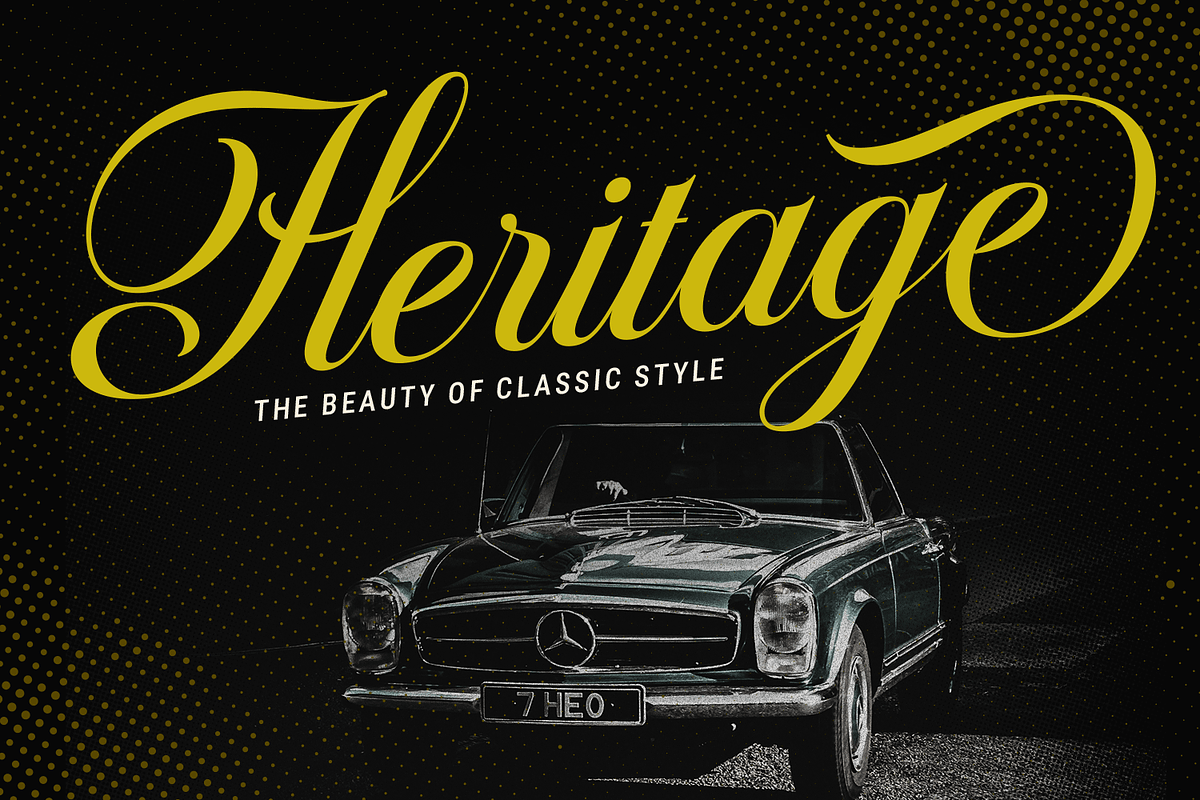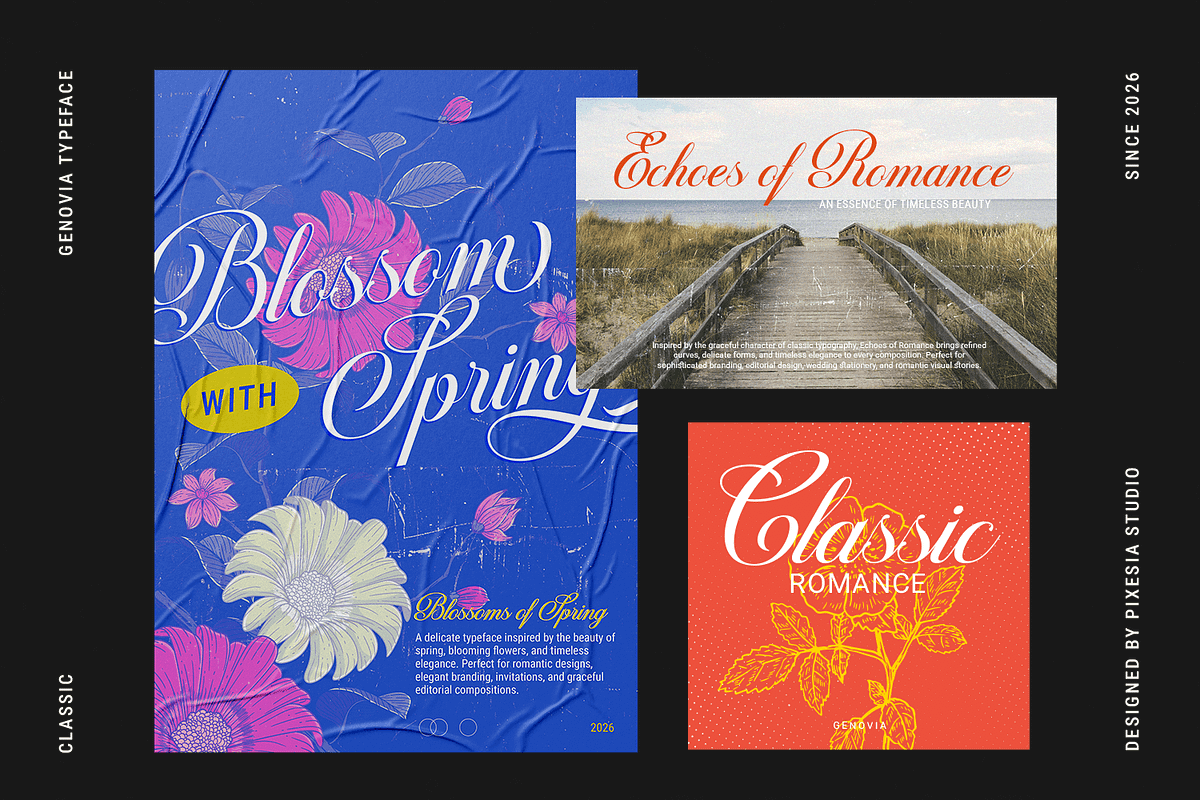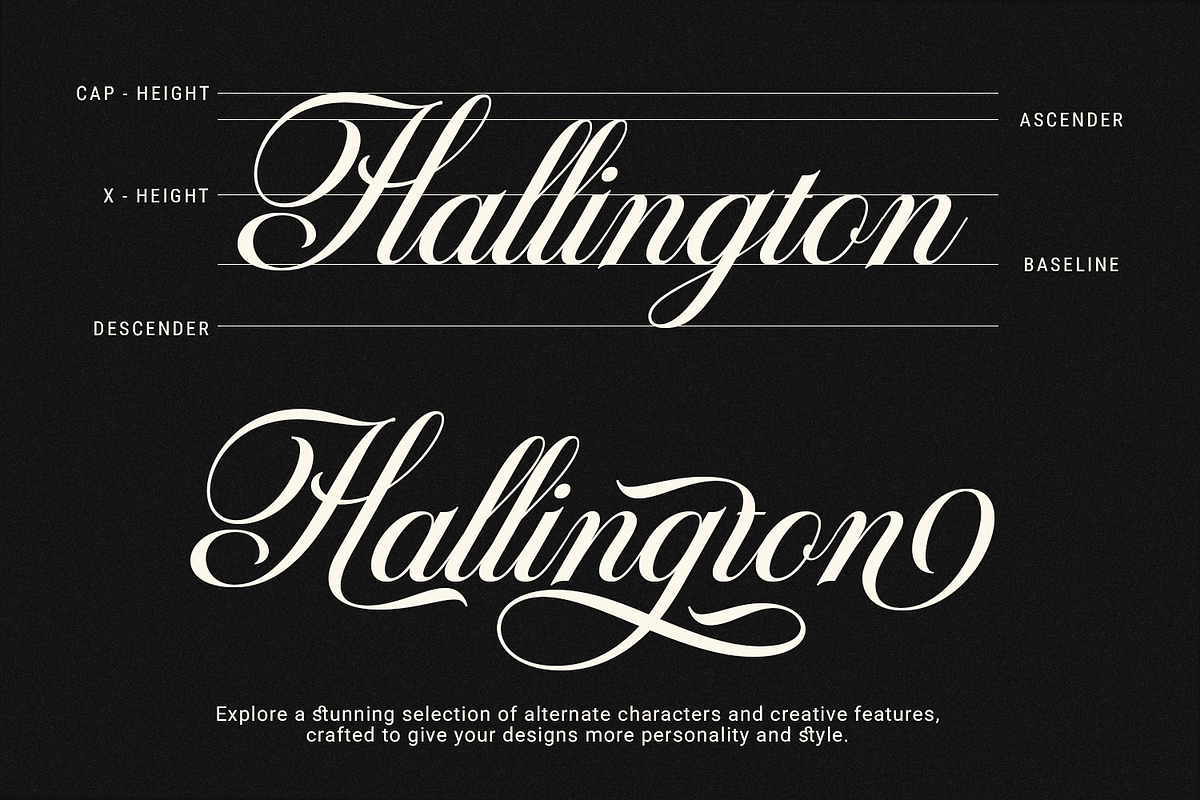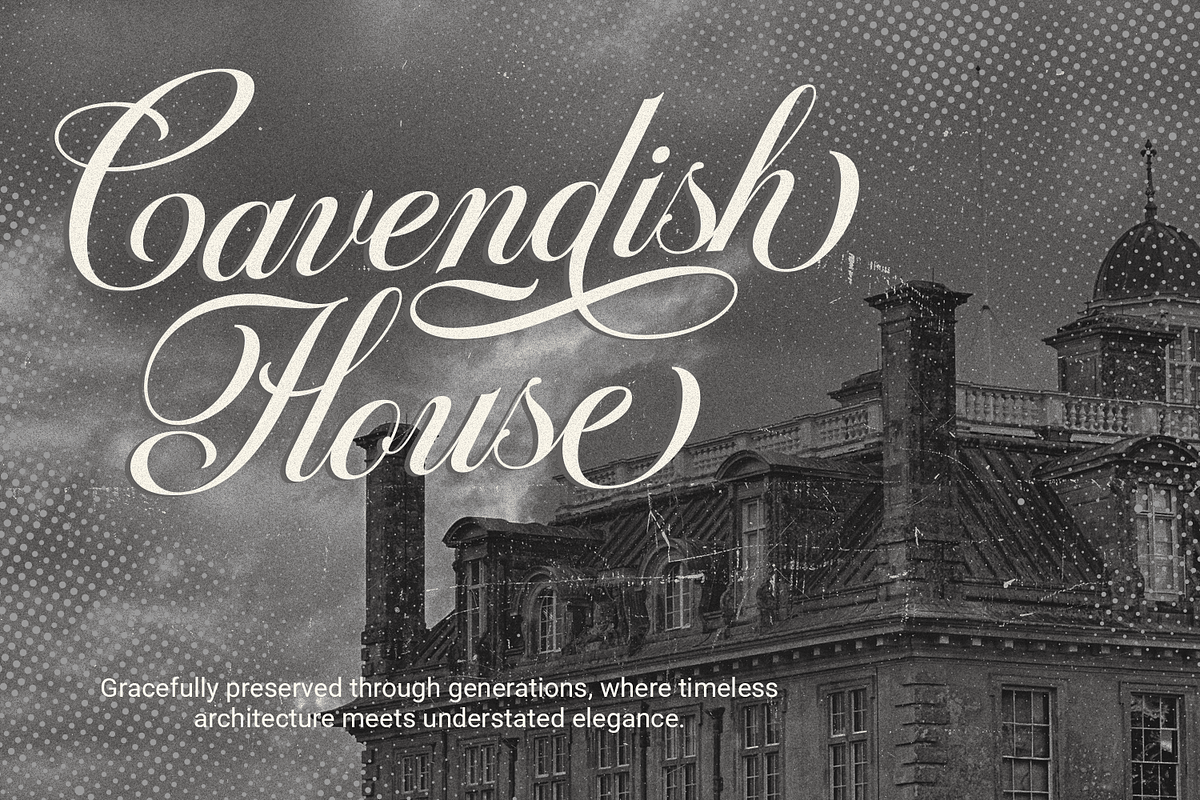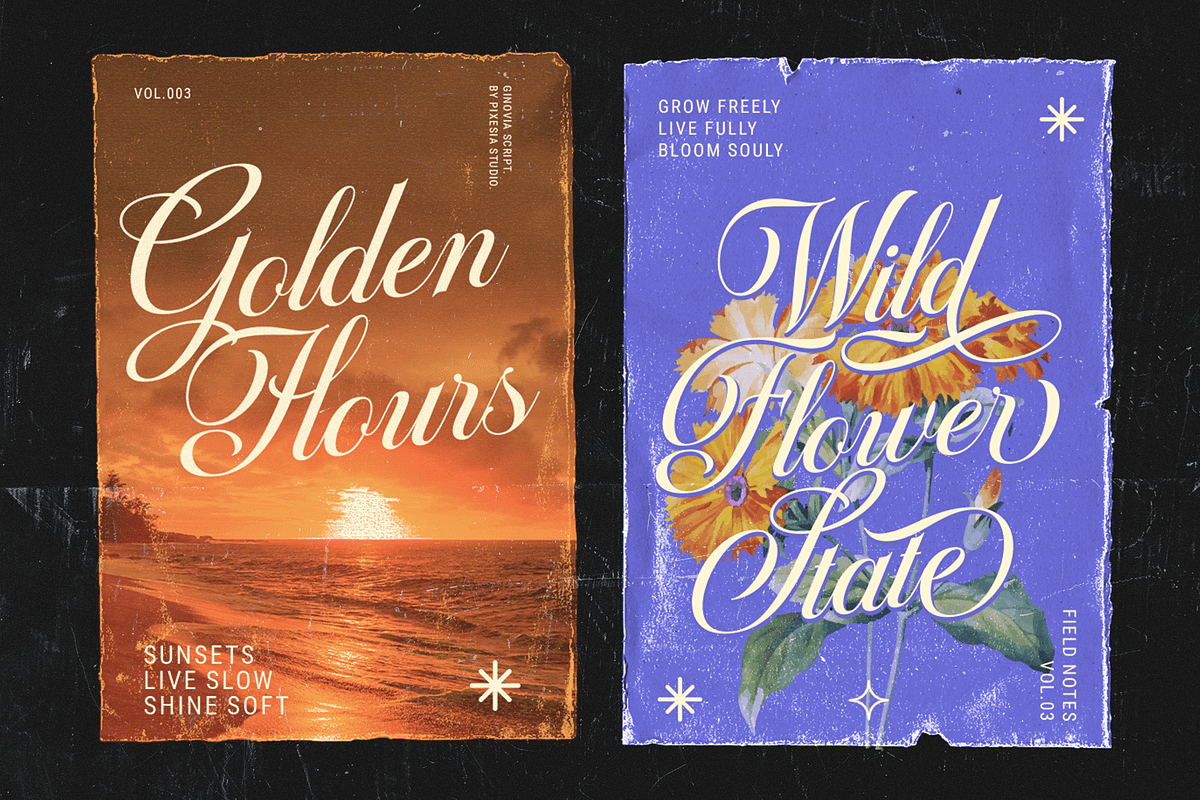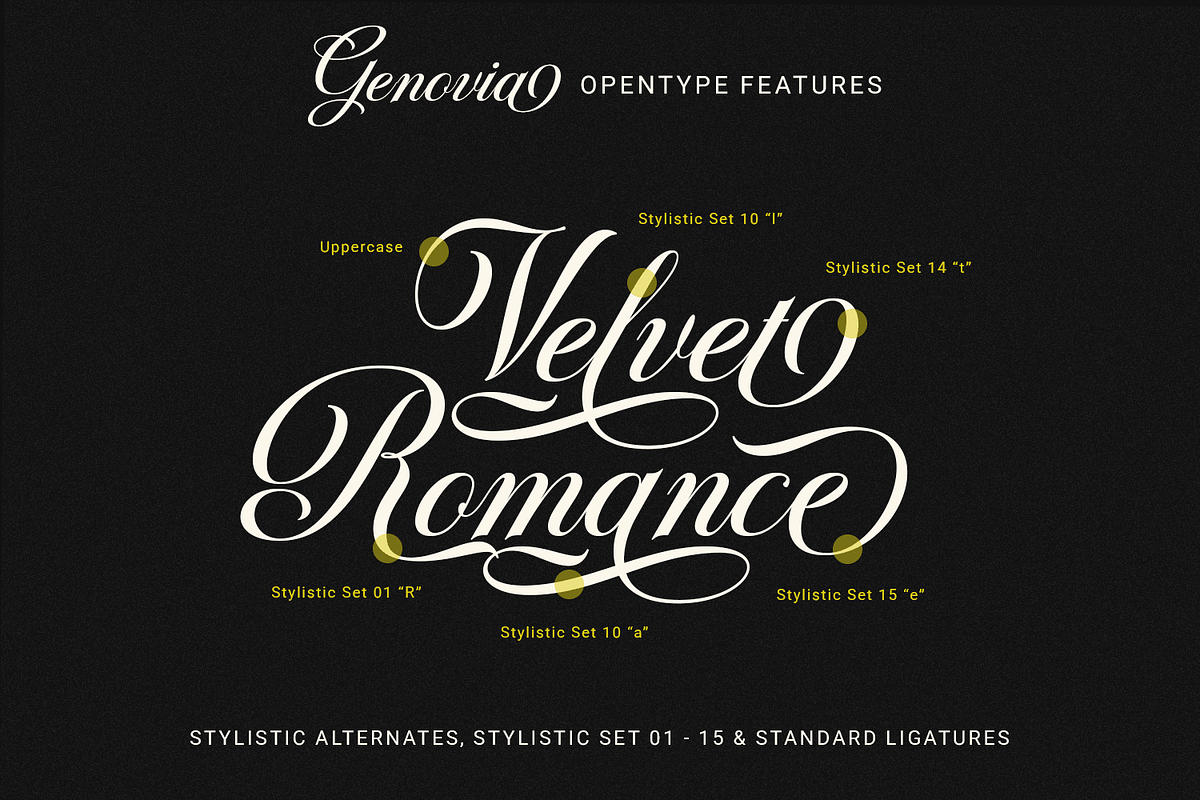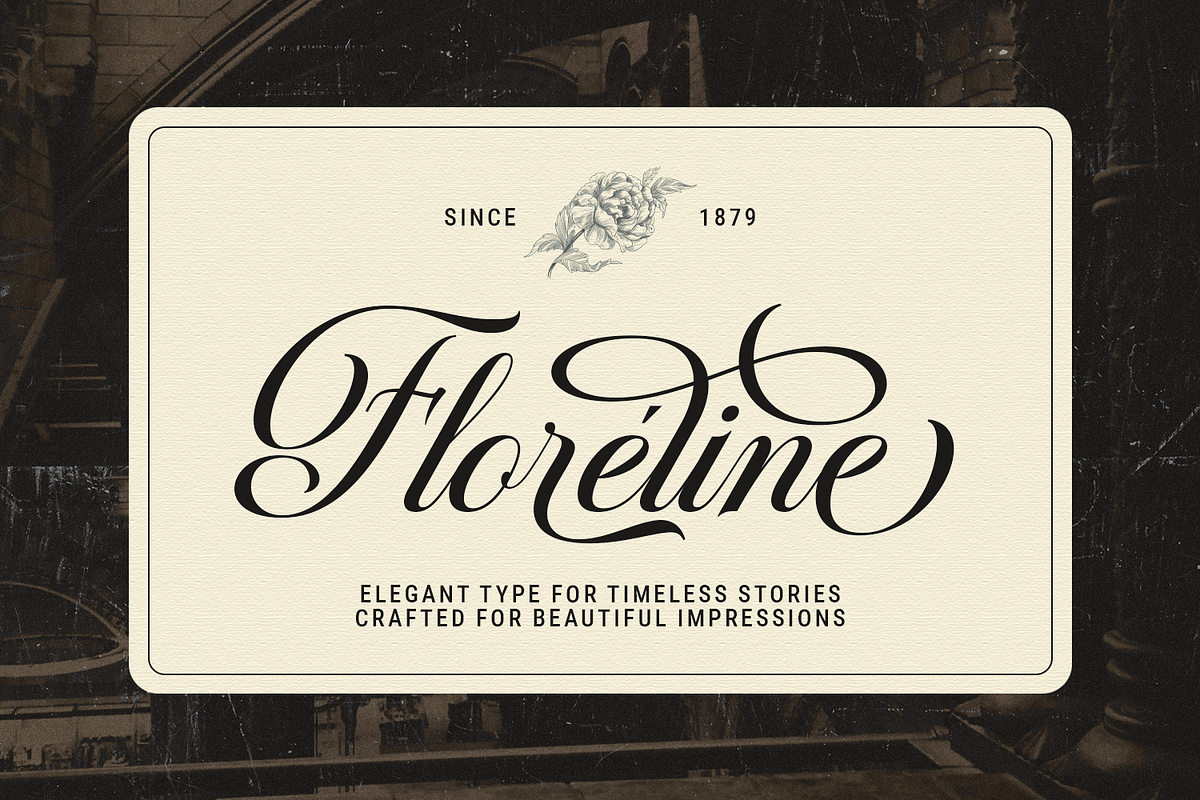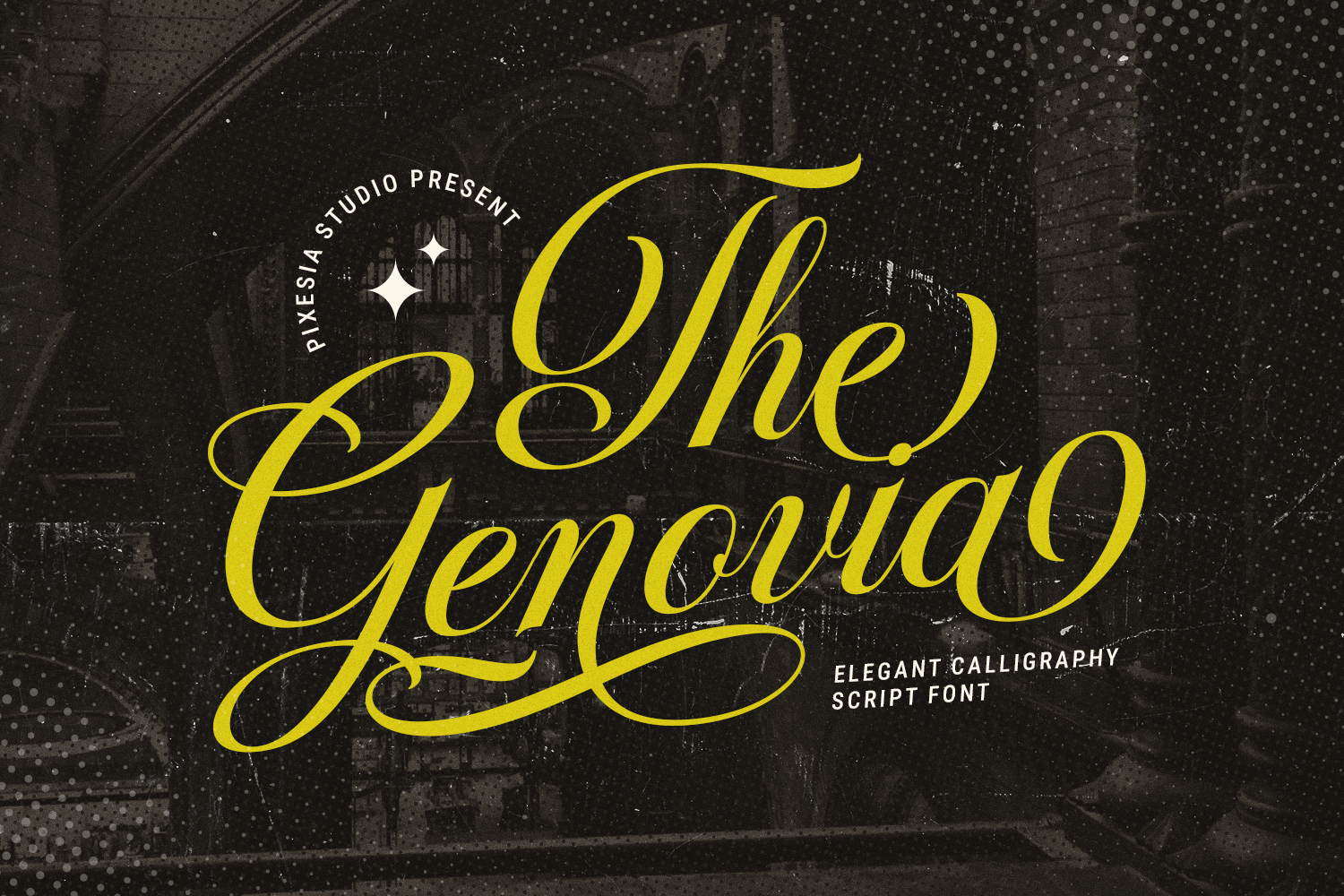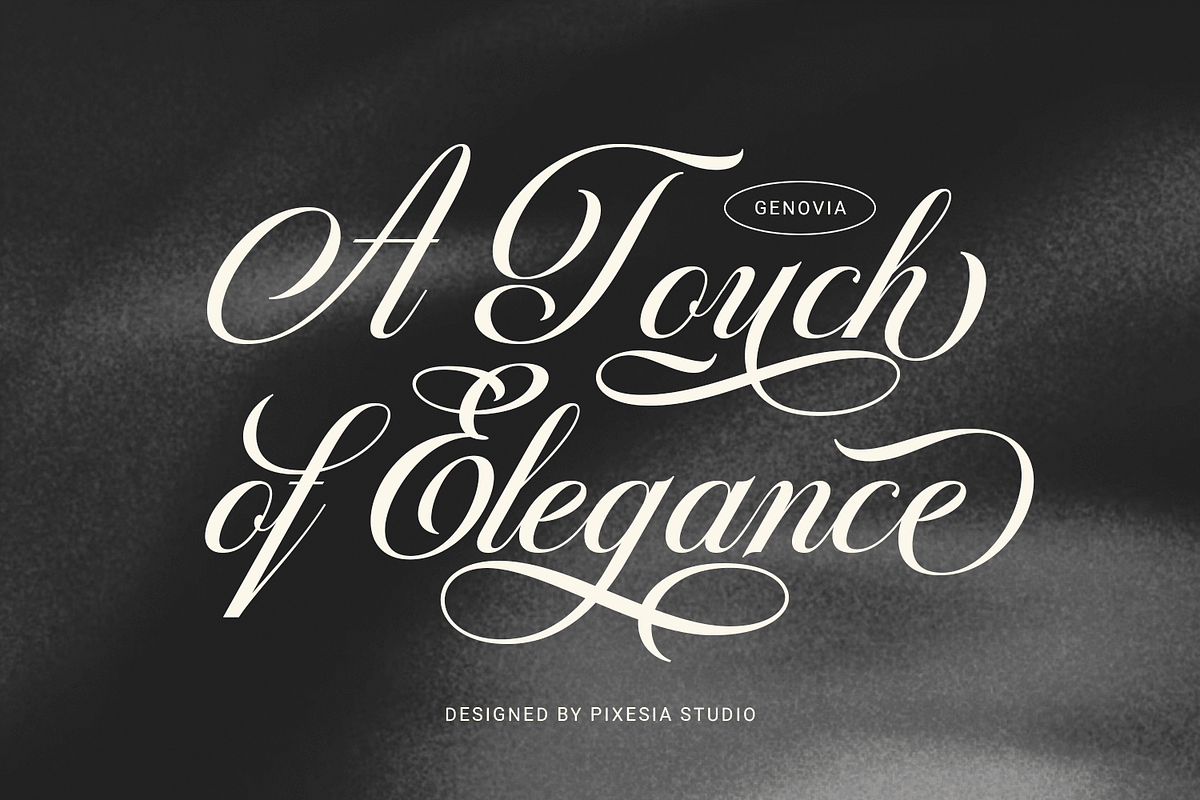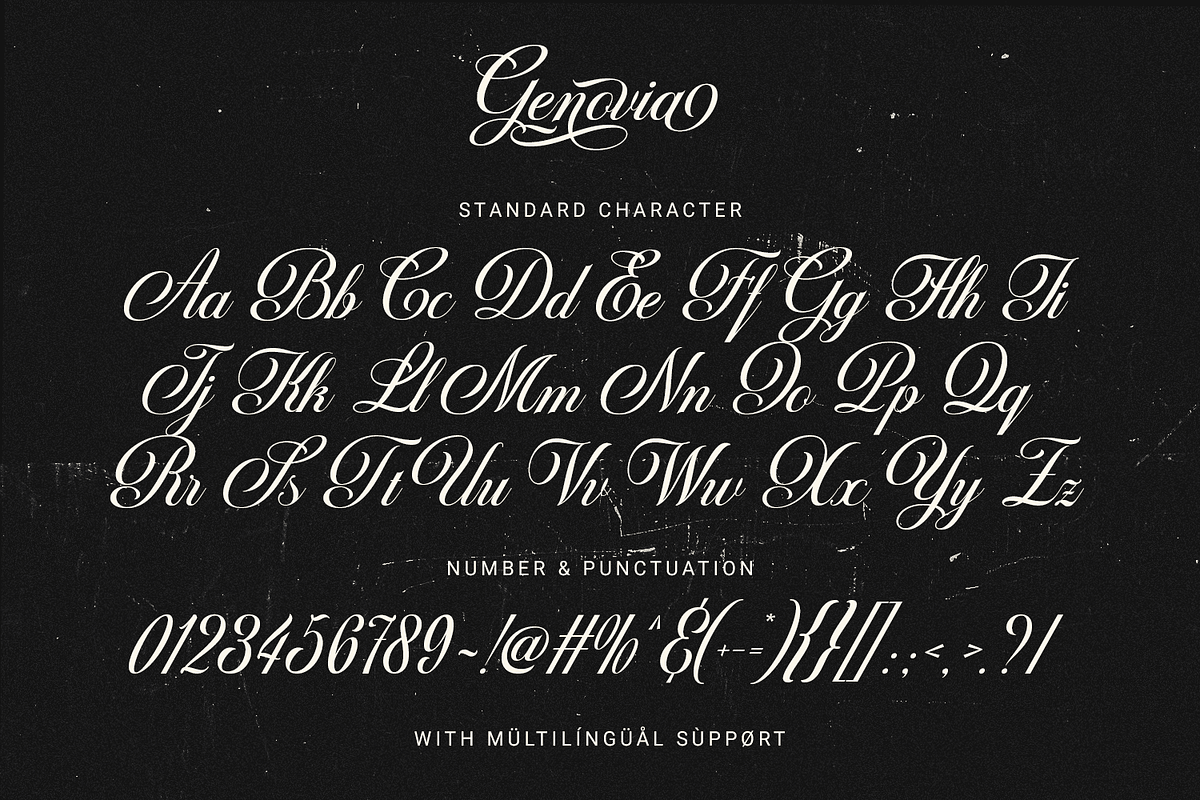
Genovia - Elegant Calligraphy Font
Introducing Genovia - Elegant Calligraphy Script Font
Genovia is an elegant calligraphy script typeface crafted to bring sophistication, romance, and timeless beauty to modern design. Featuring graceful curves, flowing strokes, and expressive swashes, this font combines classic calligraphic elegance with a refined contemporary aesthetic. Its delicate yet confident letterforms create a beautifully polished appearance that adds personality and elegance to every composition.
Perfect for wedding invitations, branding, logos, fashion campaigns, beauty products, packaging, stationery, and premium marketing materials, Genovia delivers a graceful and luxurious presence. Whether you're creating a romantic wedding identity or designing an elegant brand concept, this typeface provides the perfect balance of artistry, sophistication, and expressive visual impact.
- Multilingual Support including Afrikaans, Albanian, Basque, Catalan, Danish, Dutch, English, Estonian, Faroese, Filipino, Finnish, French, Galician, German, Icelandic, Indonesian, Irish, Italian, Malay, Norwegian Bokmål, Portuguese, Spanish, Swahili, Swedish, Zulu